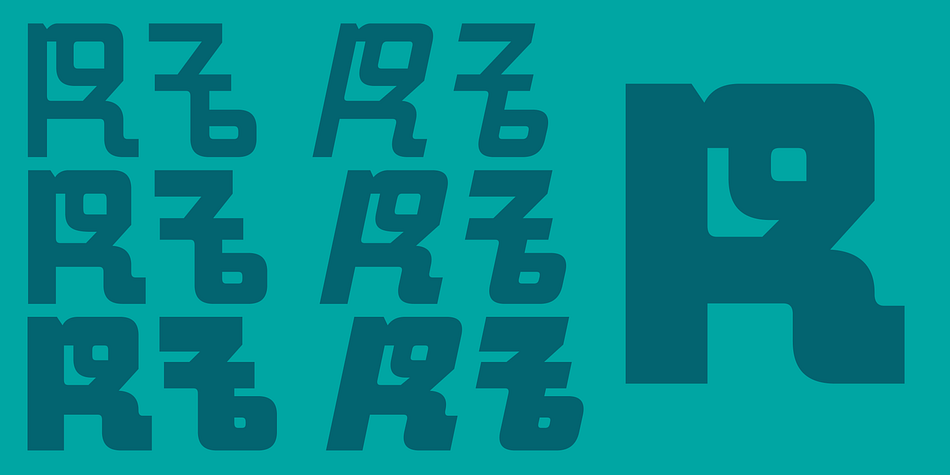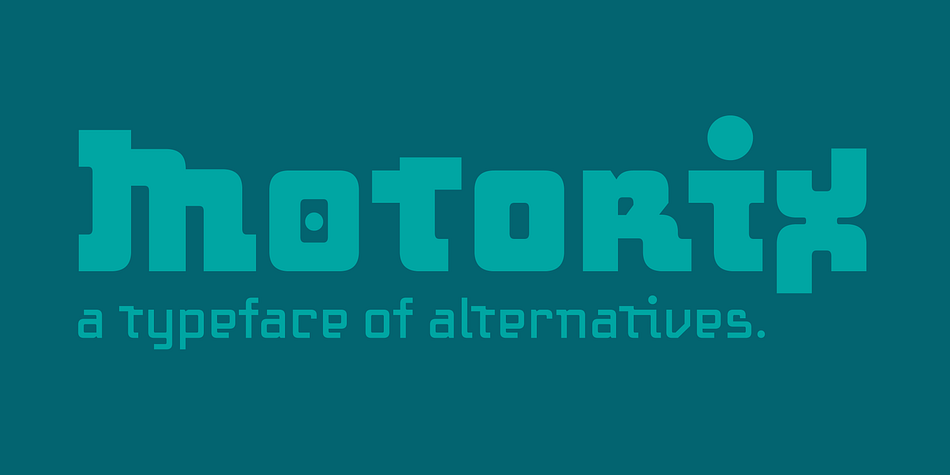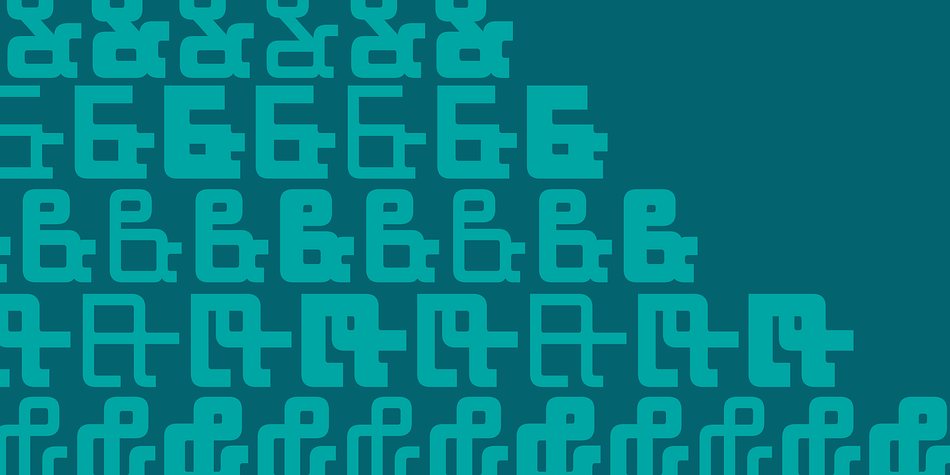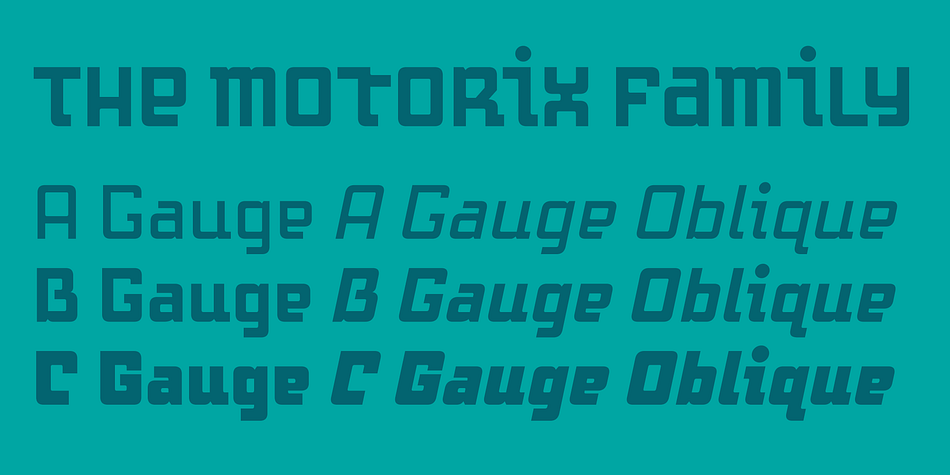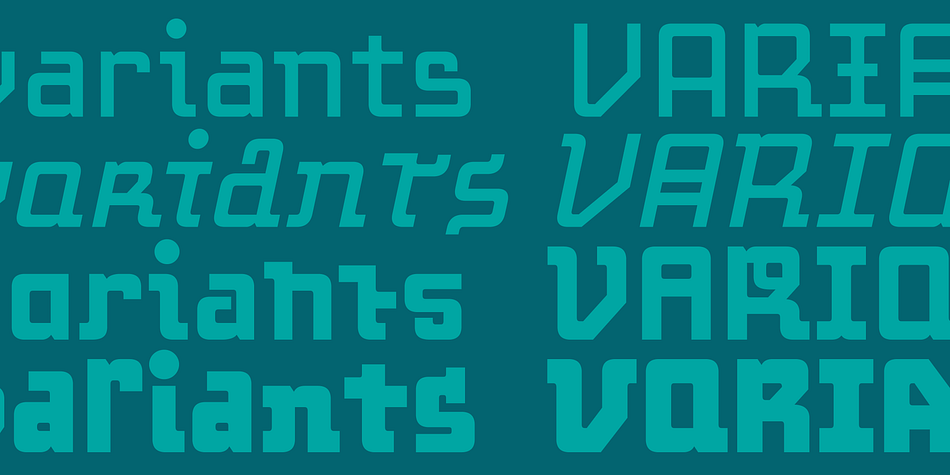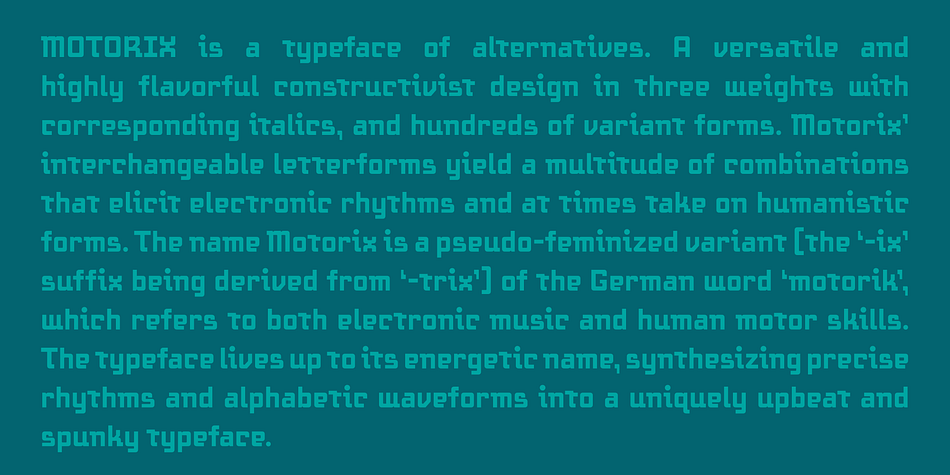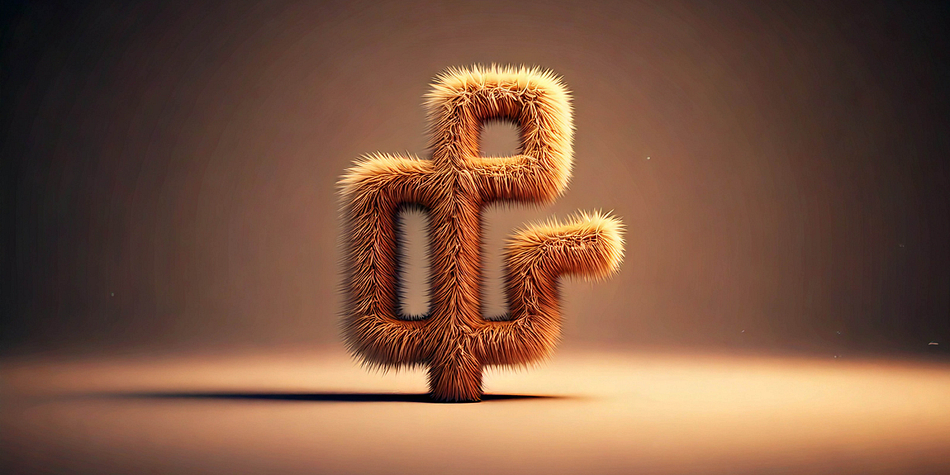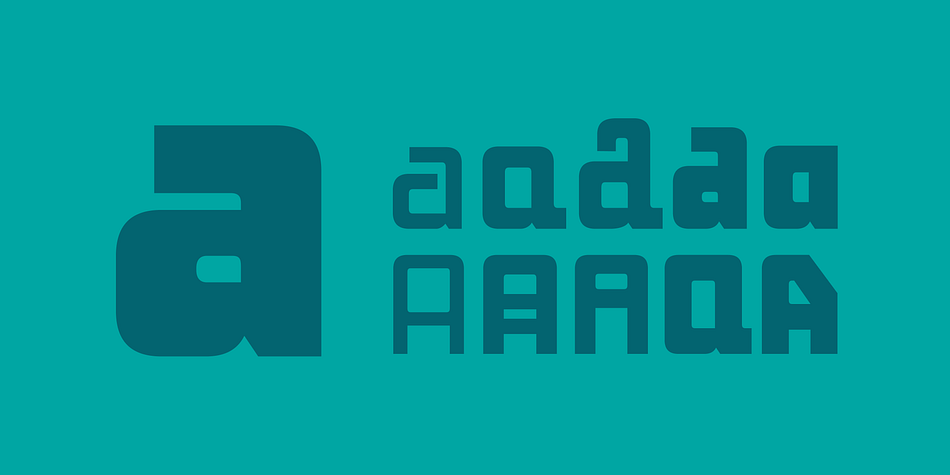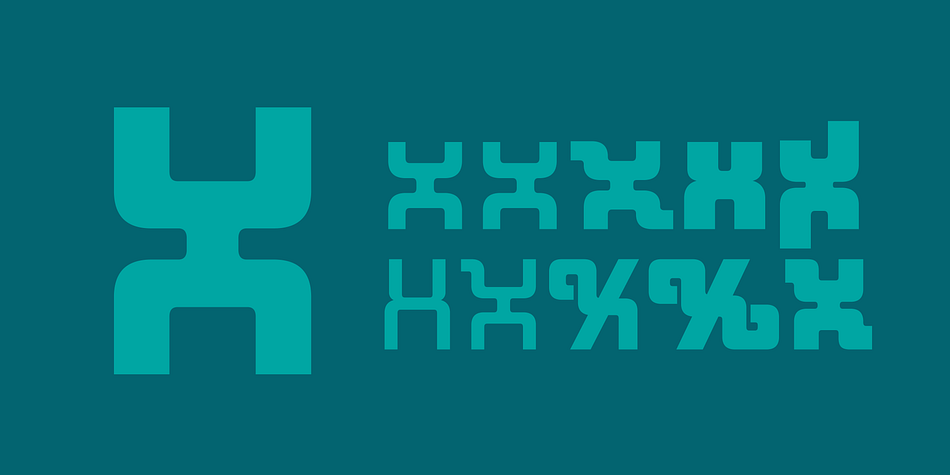
Motorix
Designed by Rod Cavazos, Motorix is a display sans font family. This typeface has six styles and was published by Ampersand Type Foundry.
Mororix is a typeface of alternatives. A versatile and highly flavorful constructivist design in three weights with corresponding italics, and hundreds of variant forms. Motorix’ interchangeable letterforms yield a multitude of combinations that elicit electronic rhythms and at times take on humanistic forms. The name Motorix is a pseudo-feminized variant (the ‘-ix’ suffix being derived from ‘-trix’) of the German word ‘motorik’, which refers to both electronic music and human motor skills. The typeface lives up to its energetic name, synthesizing precise rhythms and alphabetic waveforms into a uniquely upbeat and spunky typeface.